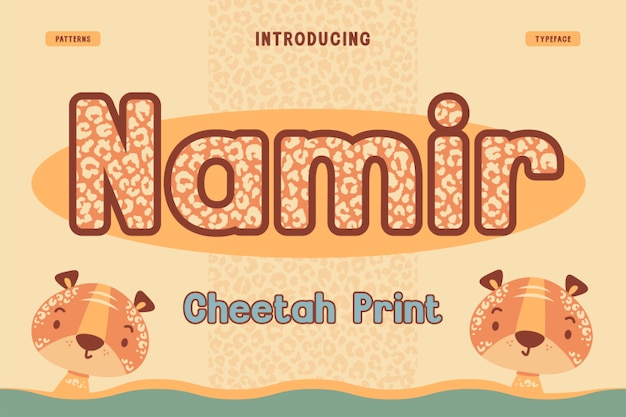
Namir
Namir Font
Namir is a bold, animal-inspired font that channels the sleek power of a cheetah. Its strong, dynamic strokes are complemented by subtle animal print patterns, giving it a wild yet refined feel. Perfect for designs that seek to capture the raw energy of nature, Namir adds a fierce, stylish edge to branding, logos, and creative projects.